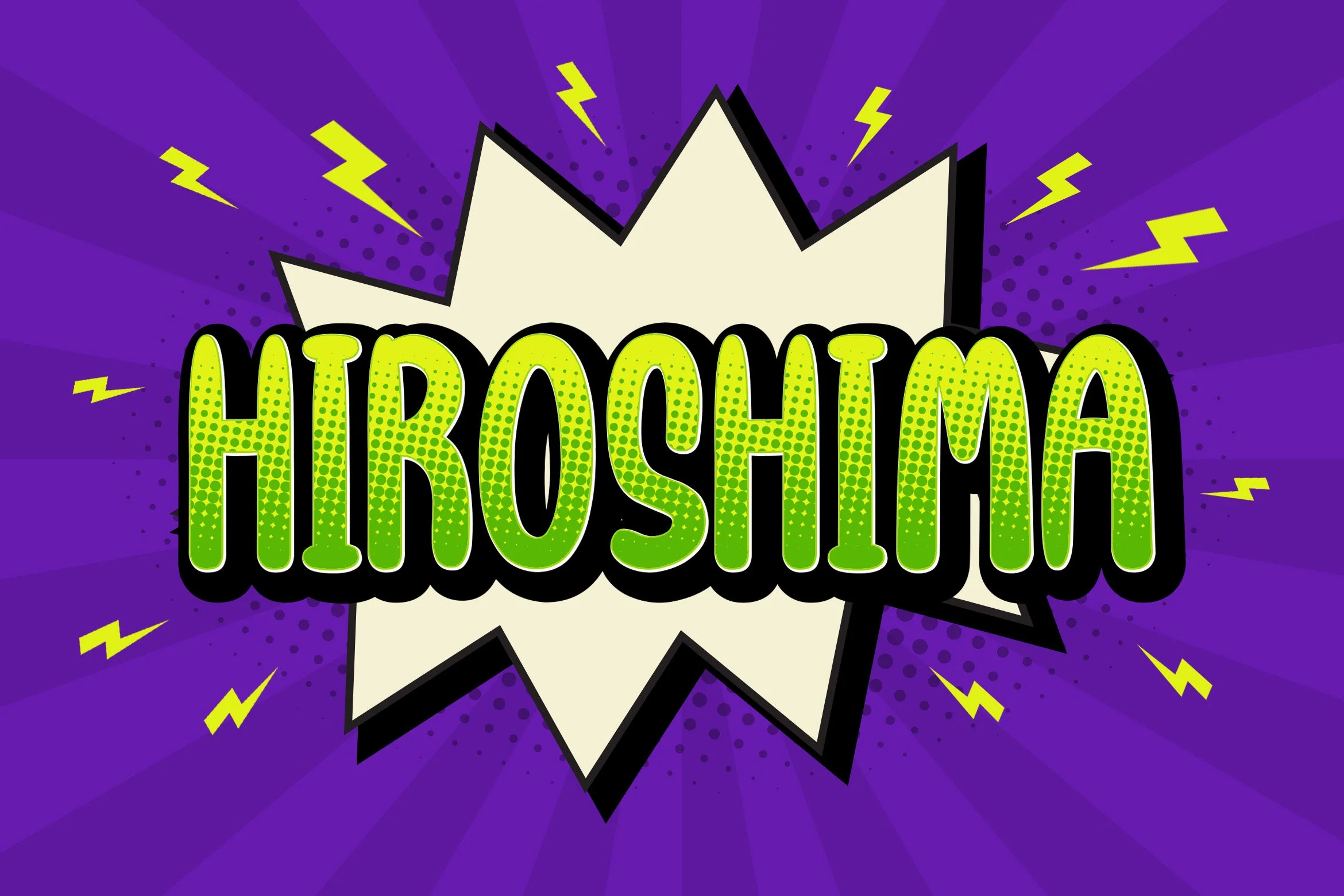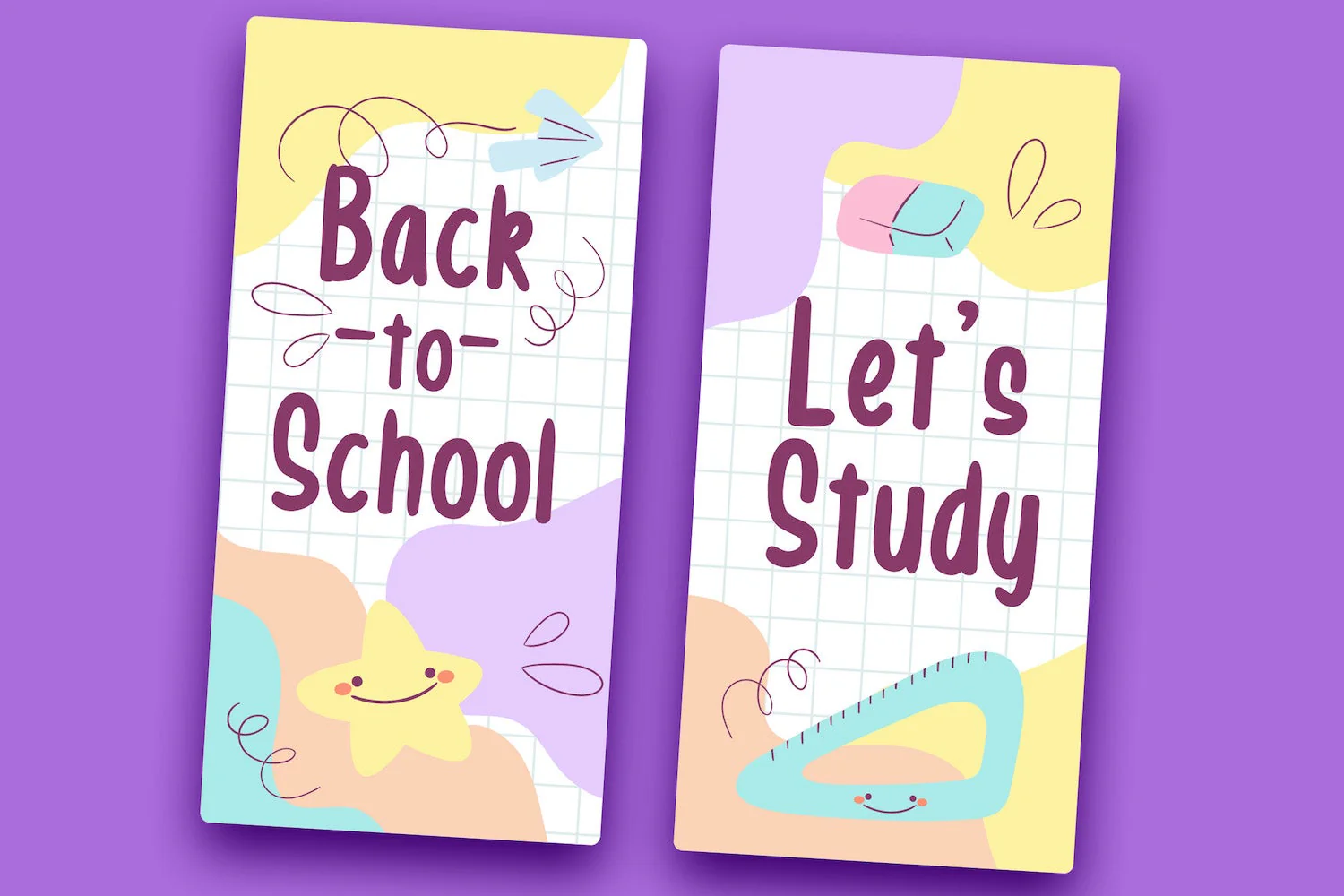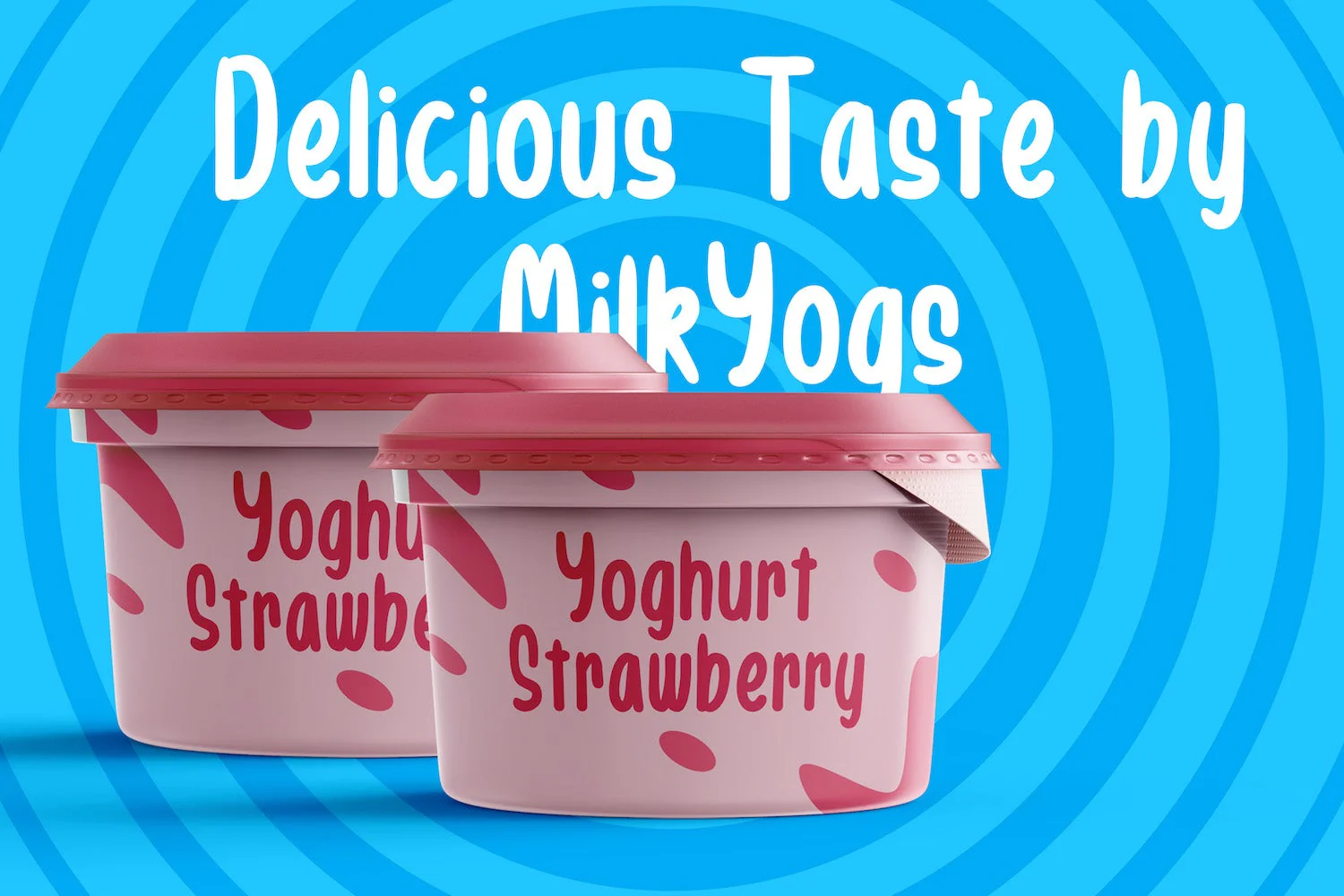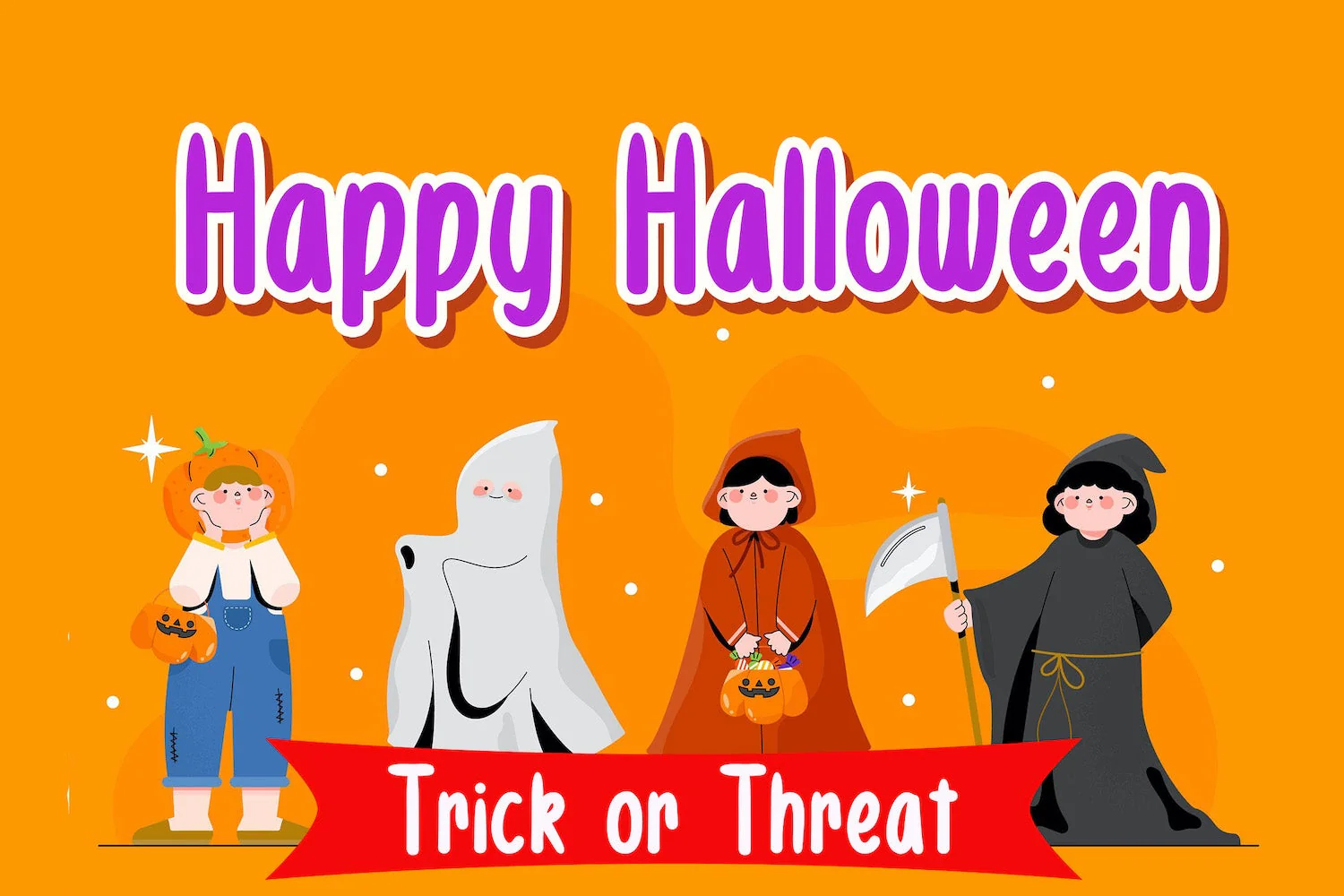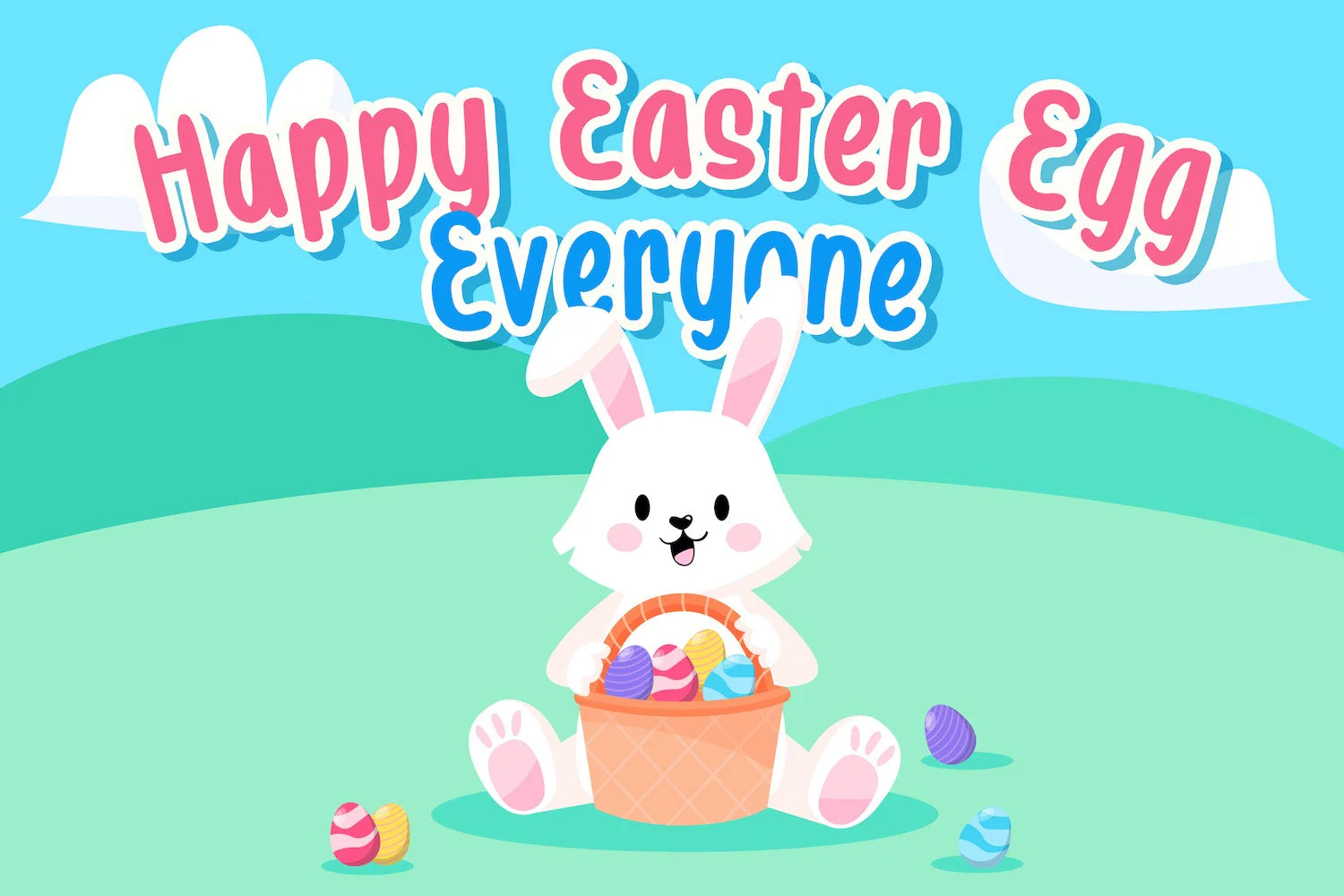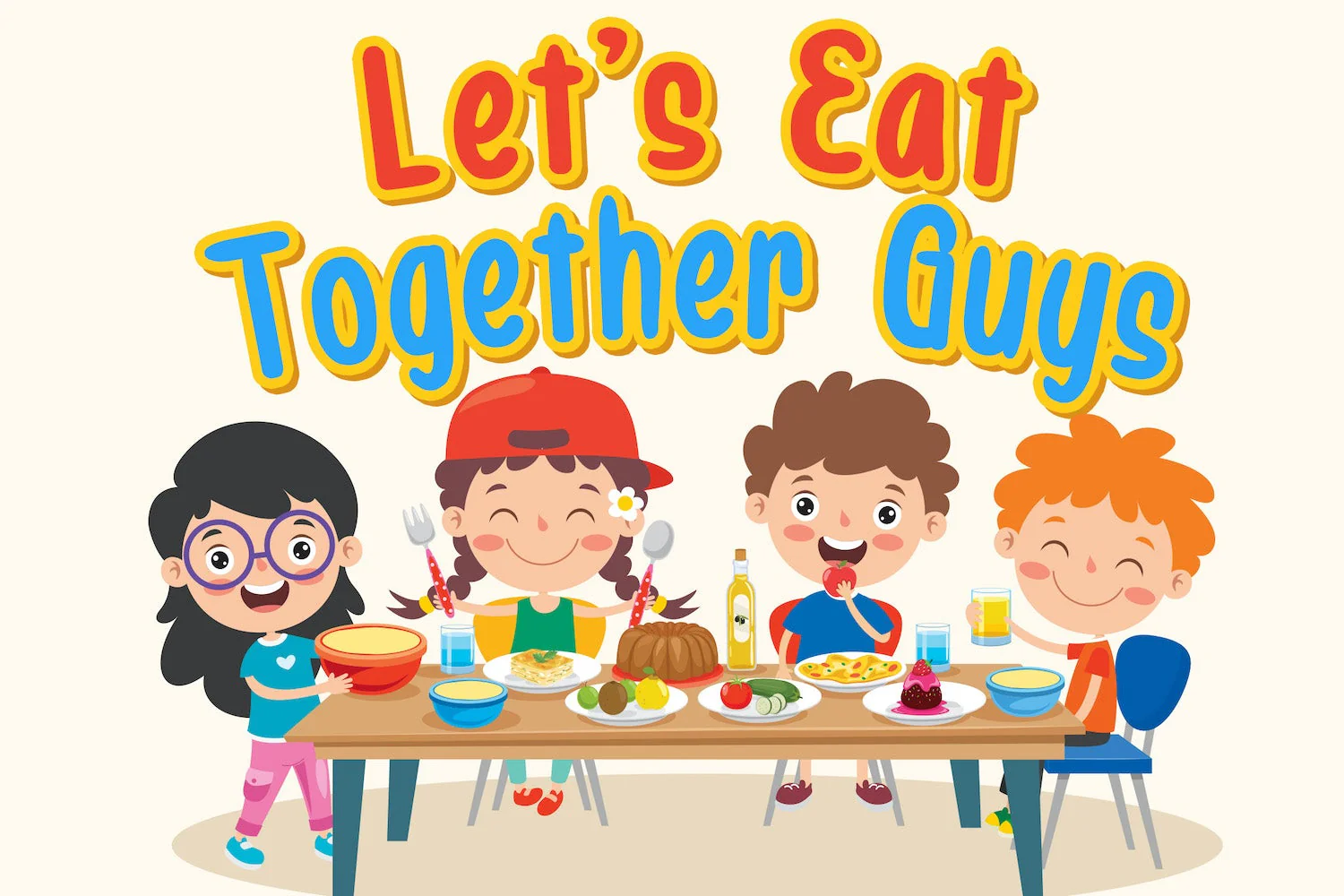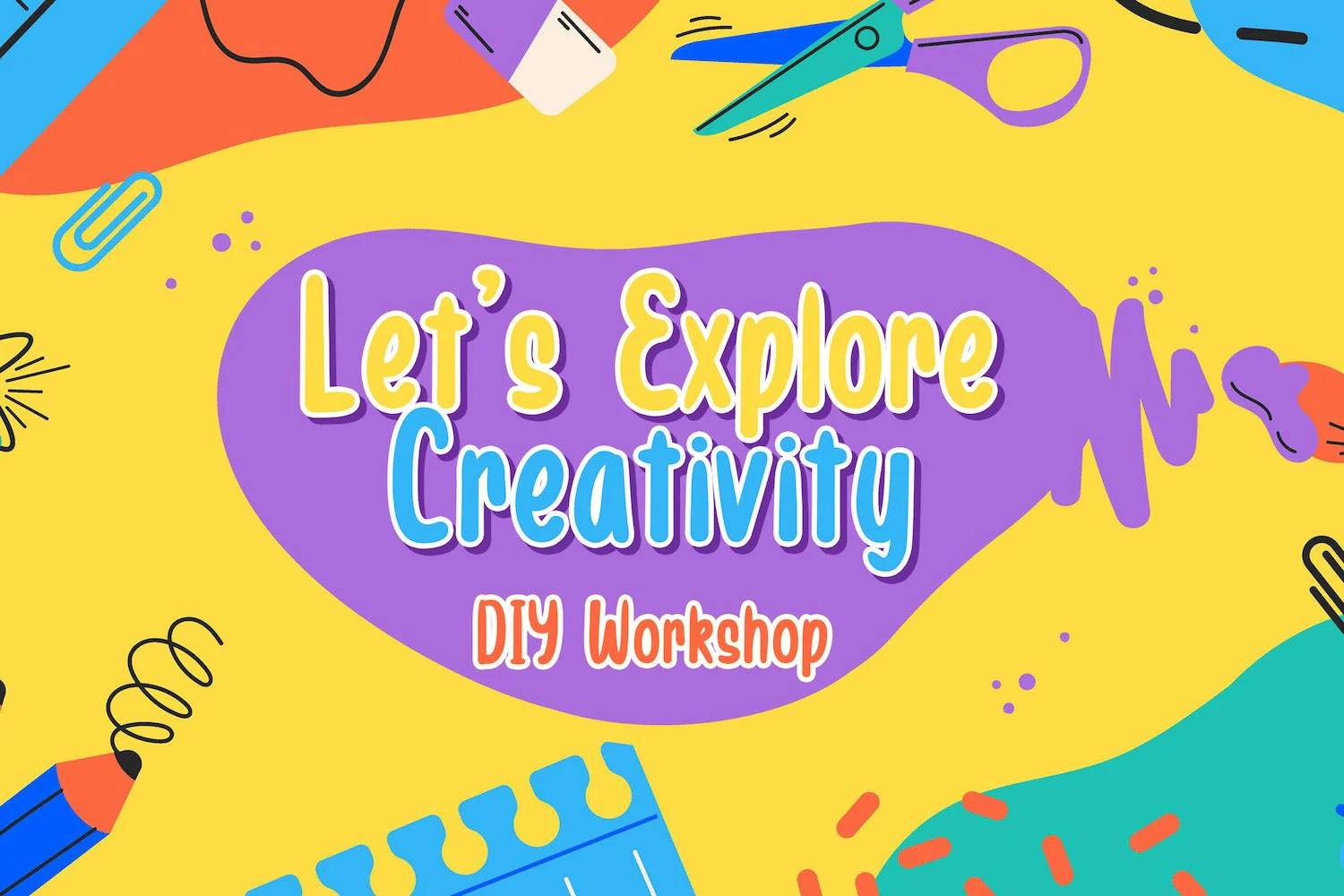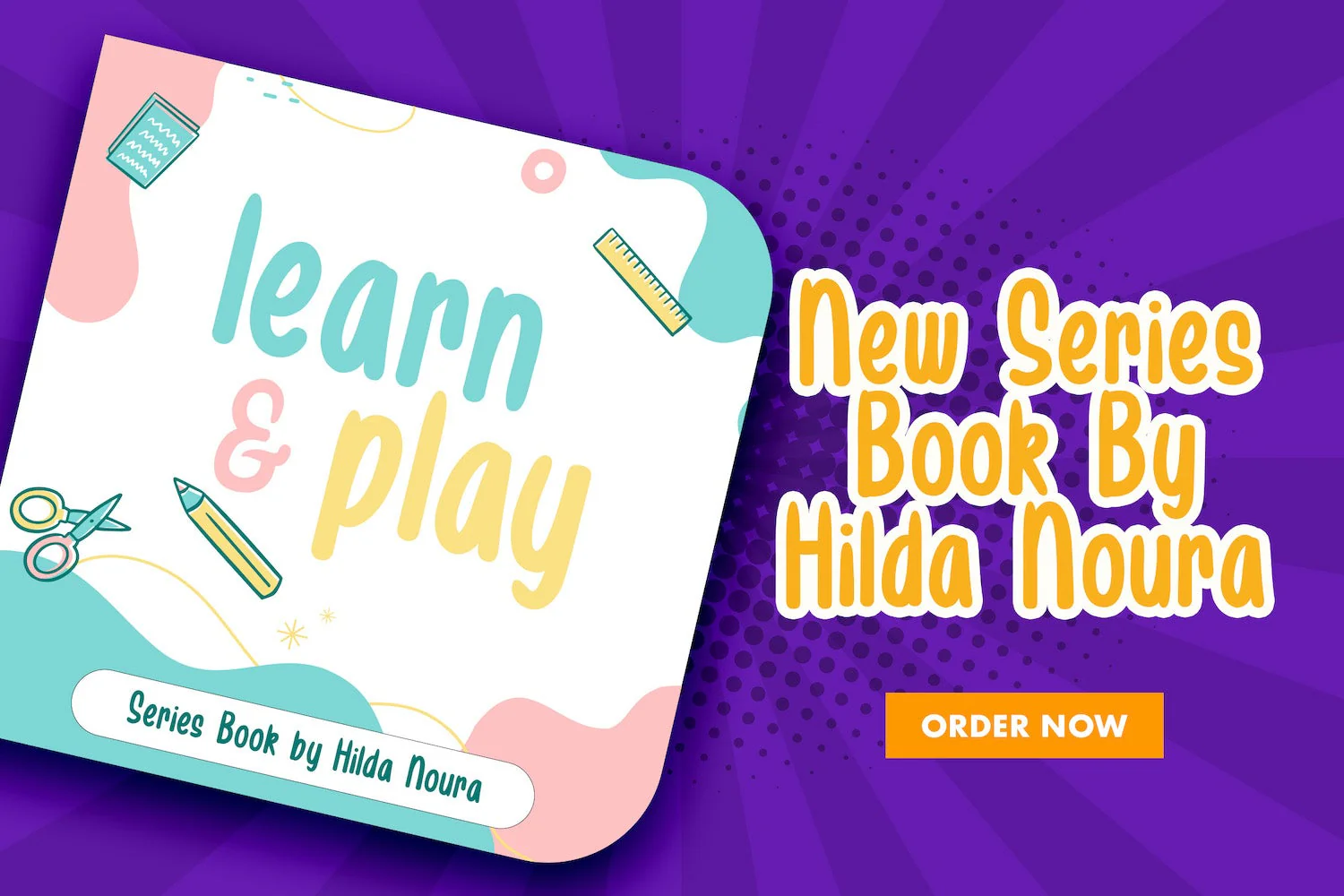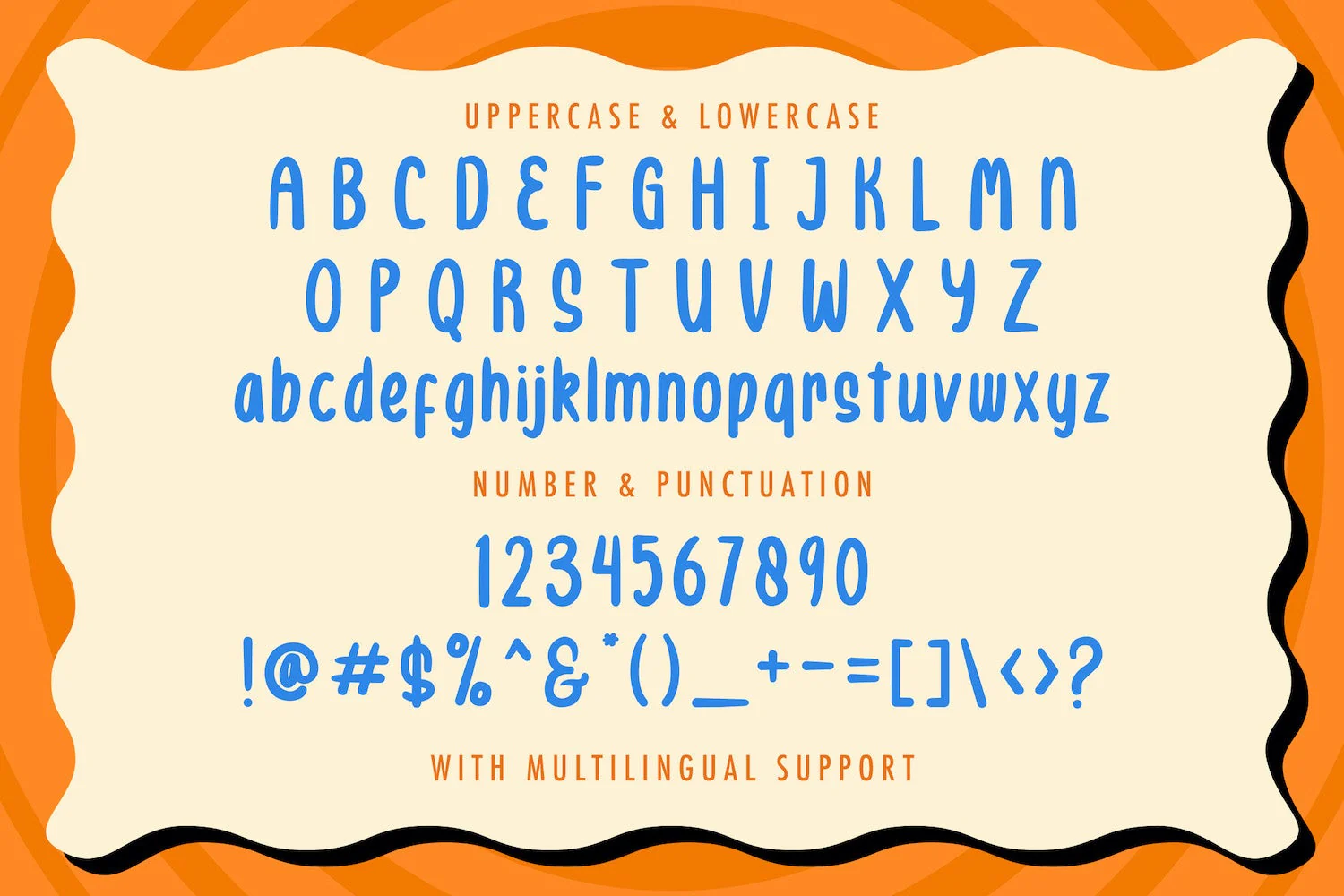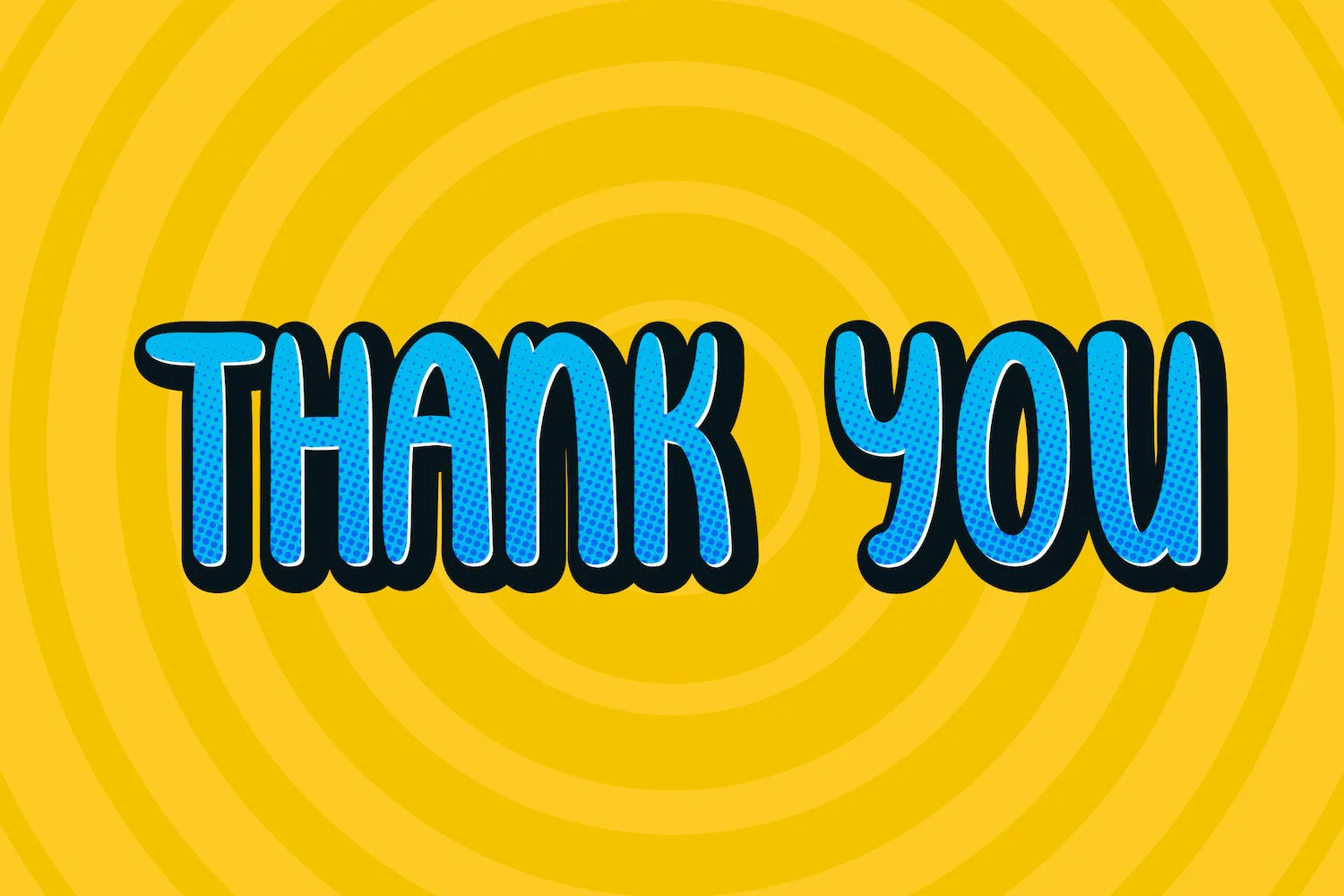
HIROSHIMA - Playful Display Font
Introducing HIROSHIMA - Playful Display Font
HIROSHIMA is a fun display font. Playful and fresh, this font will be a hit for each of your children or school projects!